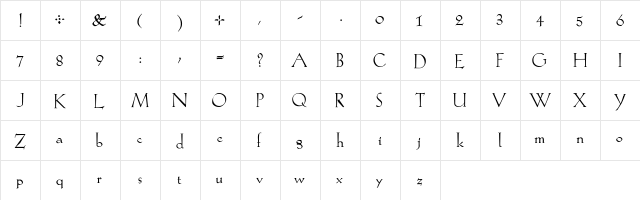
KochRead Regular Font Preview
KochRead Regular
KochRead Regular Font Details
Design Context for KochRead Typeface
KochRead takes a measured approach to typography — its balanced proportions and neutral character make it a reliable workhorse for both digital and print work.
Pro Tip: Use KochRead in both headline and body roles to test its range before committing to a single application.